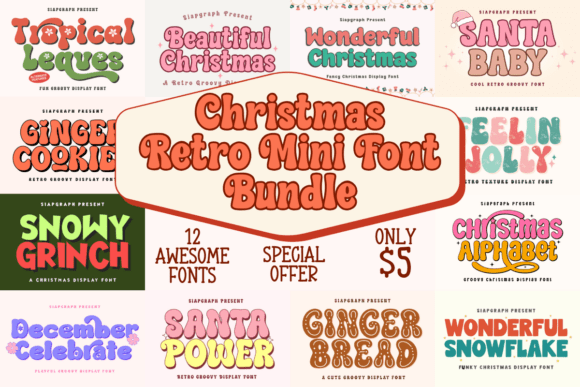
Christmas Retro Mini Bundle Font
✨ 12 Awesome Fonts: Christmas Retro Mini Bundle!
Dive into the ultimate collection of festive typography with the Christmas Retro Mini Font Bundle!
This special offer gives you 12 awesome fonts packed with groovy, vintage, and playful holiday vibes, perfect for all your seasonal crafting and design needs.
Inspired by the colorful, fun, and nostalgic aesthetic of 60s and 70s Christmas decorations, this bundle provides a variety of styles—from smooth, bubble lettering to textured, distressed display fonts—all sharing that irresistible retro charm.
These groovy, chunky, and fun fonts—including Tropical Legues, Snowy Grinch, and Santa Power—capture the irresistible, bubbly aesthetic of the 60s and 70s, perfectly fused with modern Christmas cheer. The Christmas Retro Mini Font Bundle is your ultimate toolkit for creating eye-catching greeting cards, playful product packaging, festive social media posts, and bold seasonal headlines. Each typeface features thick contours and a warm, inviting personality, ensuring your designs feel both retro and refreshingly modern.